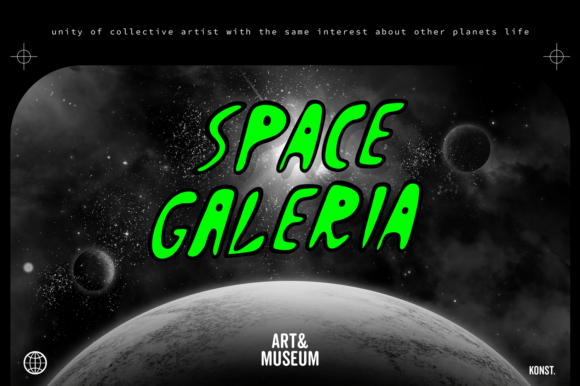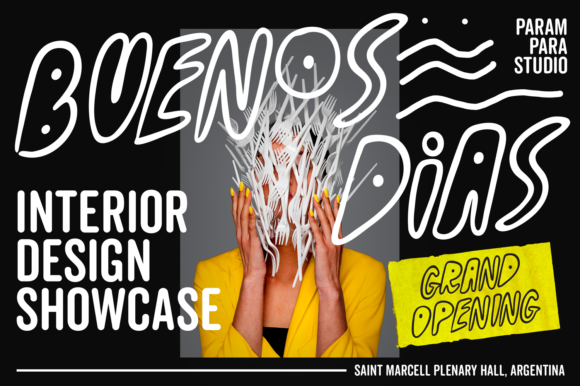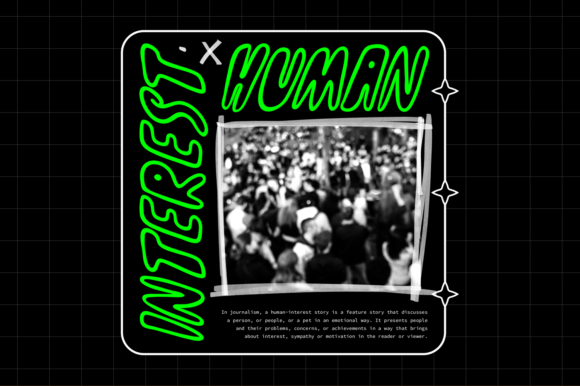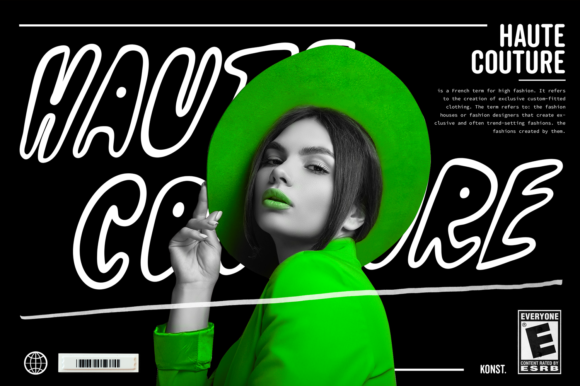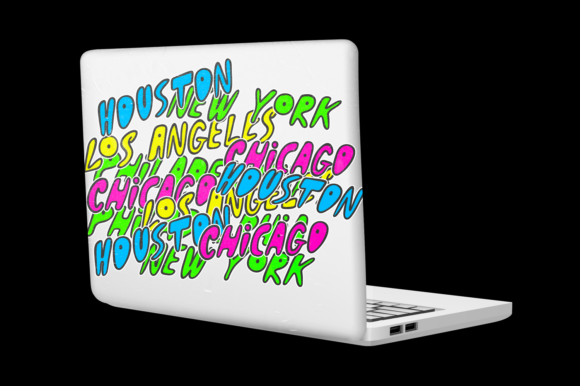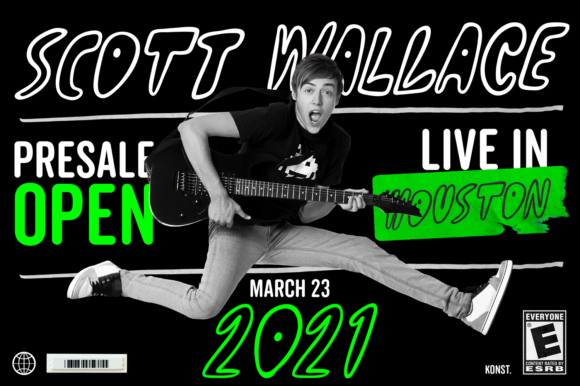
Dancing Woogie Font: Elevate Your Designs with a Cool, Relaxed, and Whimsical Display Font
Are you tired of using the same old fonts in your designs? Look no further than the Dancing Woogie Font, a cool, relaxed, and whimsical display font that’s sure to add a touch of personality to your projects. With its unique and playful style, Dancing Woogie is perfect for designers and crafters looking to create eye-catching and engaging designs.
What Makes Dancing Woogie Font So Special?
Dancing Woogie Font is a standout font that offers a range of features that make it perfect for a variety of design projects. Here are just a few reasons why you should consider adding Dancing Woogie to your font collection:
- Cool, Relaxed, and Whimsical Style: Dancing Woogie has a unique and playful style that’s perfect for creating designs that are fun, laid-back, and eye-catching.
- PUA Encoded: Dancing Woogie is PUA (Private Use Area) encoded, which means you can access all of the glyphs and swashes with ease. This makes it easy to customize your designs and add your own personal touch.
- Easy to Use: Dancing Woogie is designed to be easy to use, even for those who are new to font design. With its intuitive encoding, you can quickly and easily access all of the font’s features.
- Versatile: Dancing Woogie is a versatile font that can be used in a variety of design projects, from posters and flyers to social media graphics and more.
- Choose the Right Project: Dancing Woogie is perfect for a variety of design projects, including posters, flyers, social media graphics, and more. Choose a project that will showcase the font’s unique style and personality.
- Experiment with Different Sizes and Colors: Dancing Woogie looks great in a variety of sizes and colors. Experiment with different combinations to find the one that works best for your design.
- Pair it with Other Fonts: Dancing Woogie can be paired with other fonts to create a unique and eye-catching design. Try pairing it with a bold font for a striking contrast.
- Use the Glyphs and Swashes: Dancing Woogie is PUA encoded, which means you can access all of the glyphs and swashes with ease. Use these to add a personal touch to your design and make it stand out.
- Unique Style: Dancing Woogie has a unique and playful style that’s perfect for creating designs that stand out.
- Easy to Use: Dancing Woogie is designed to be easy to use, even for those who are new to font design.
- Versatile: Dancing Woogie can be used in a variety of design projects, from posters and flyers to social media graphics and more.
- Great for Crafting: Dancing Woogie is perfect for crafters who want to add a personal touch to their projects. Use it to create custom signs, cards, and more.
Dancing Woogie Font is a cool, relaxed, and whimsical display font that’s perfect for designers and crafters looking to add a touch of personality to their projects. With its unique style, PUA encoding, and ease of use, Dancing Woogie is a great addition to any font collection. So why wait? Add Dancing Woogie to your font collection today and start creating eye-catching and engaging designs that stand out from the crowd!
- Cool, relaxed, and whimsical display font
- Easy to use, even for those new to font design
- Versatile and perfect for a variety of design projects
- Great for crafters who want to add a personal touch to their projects